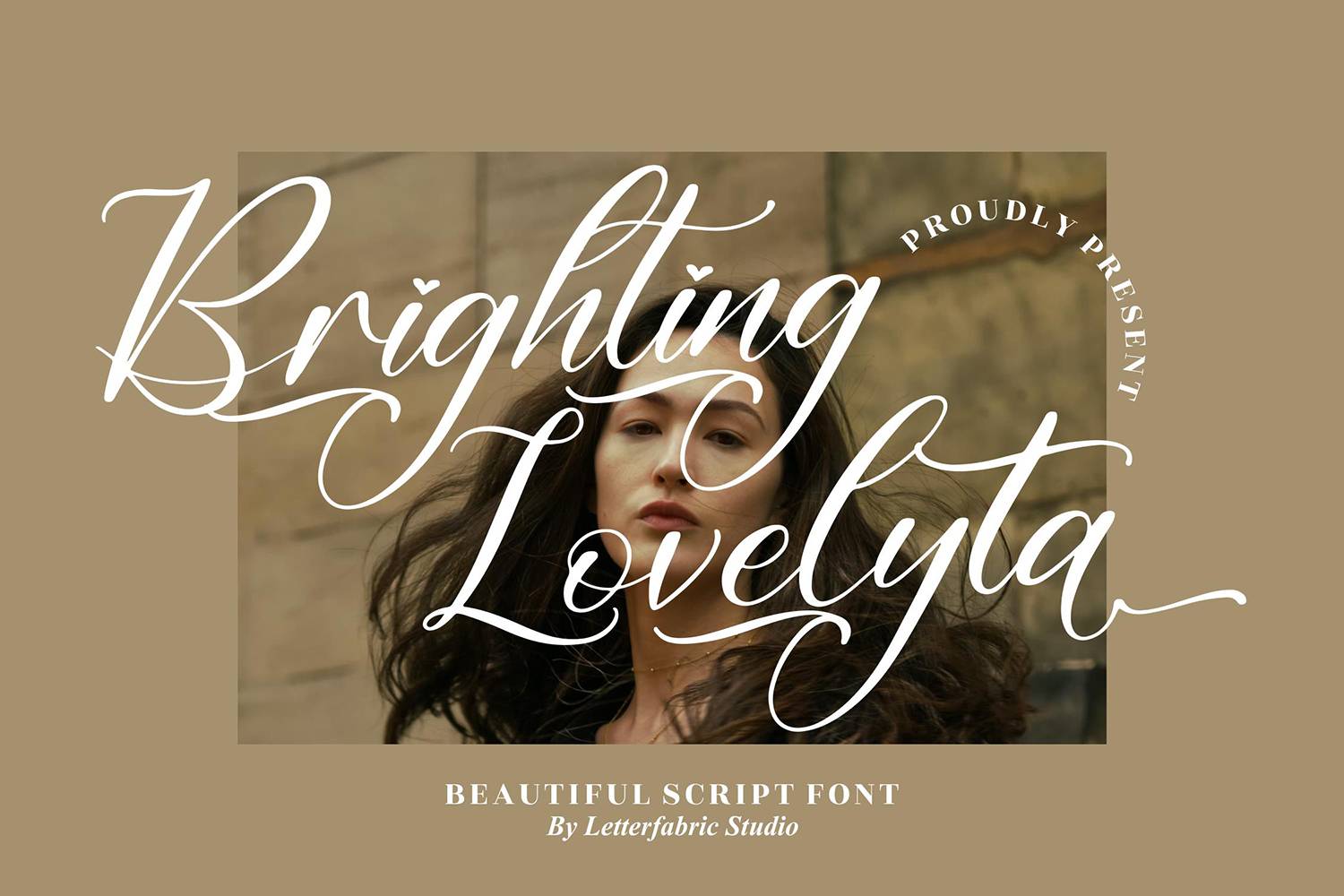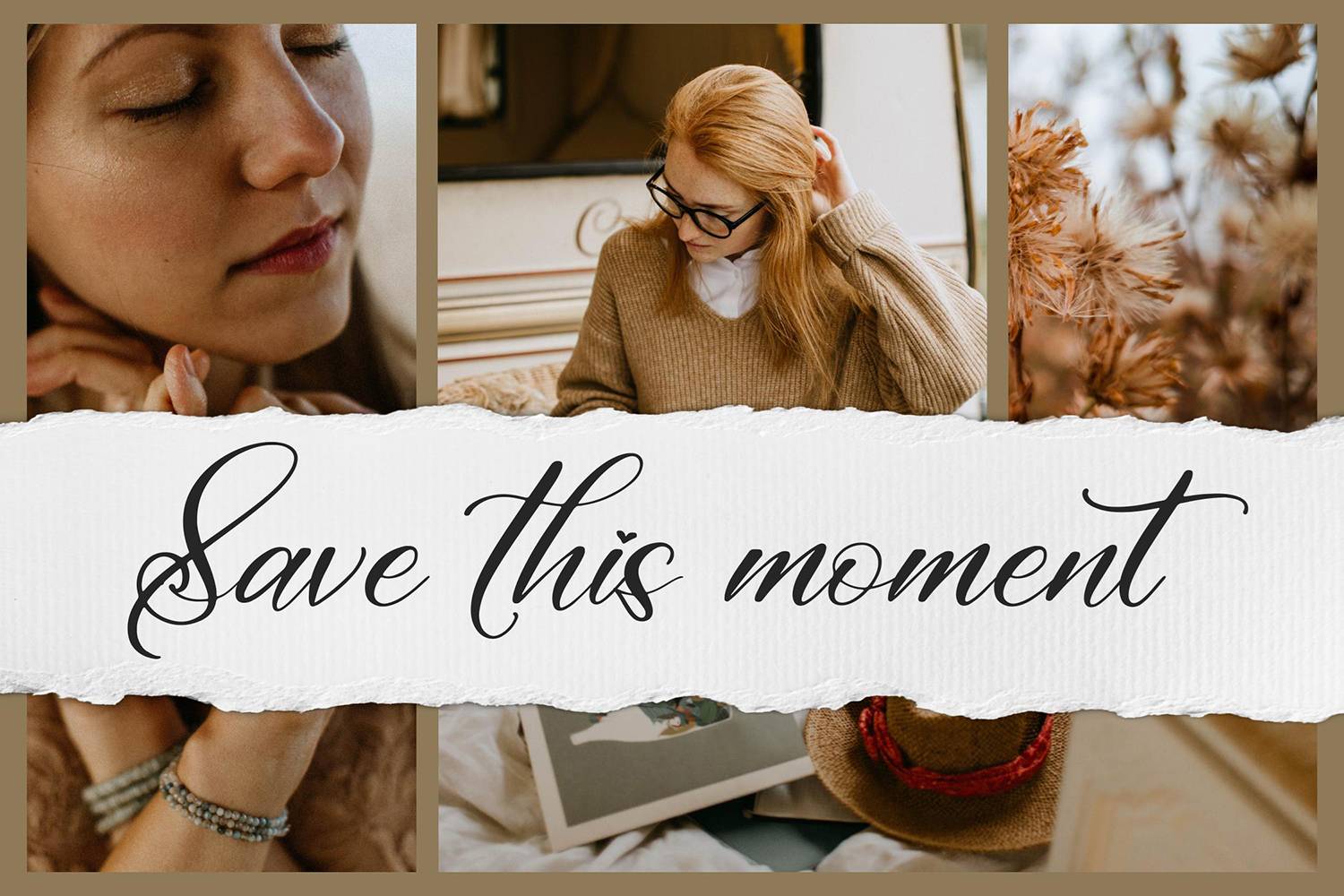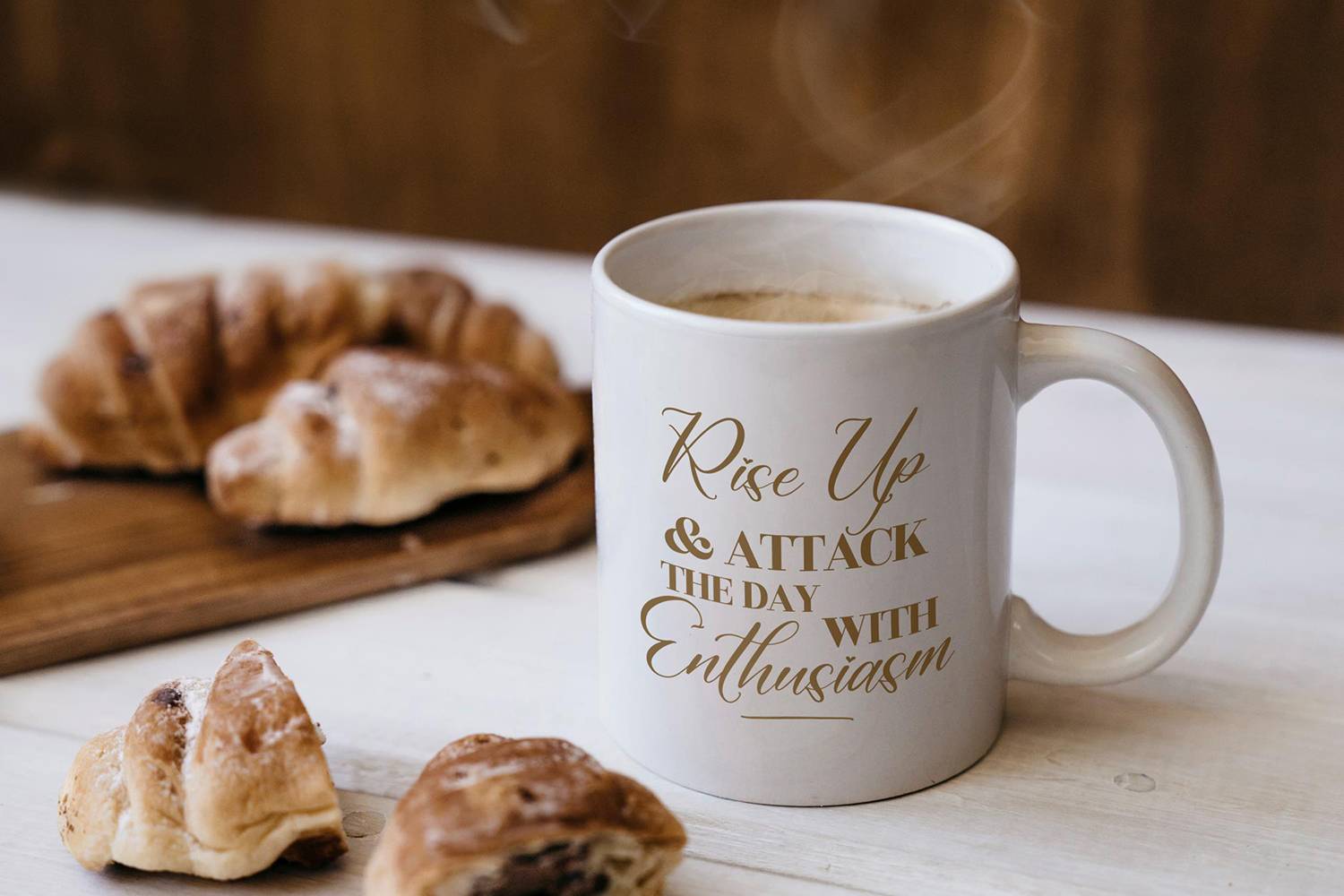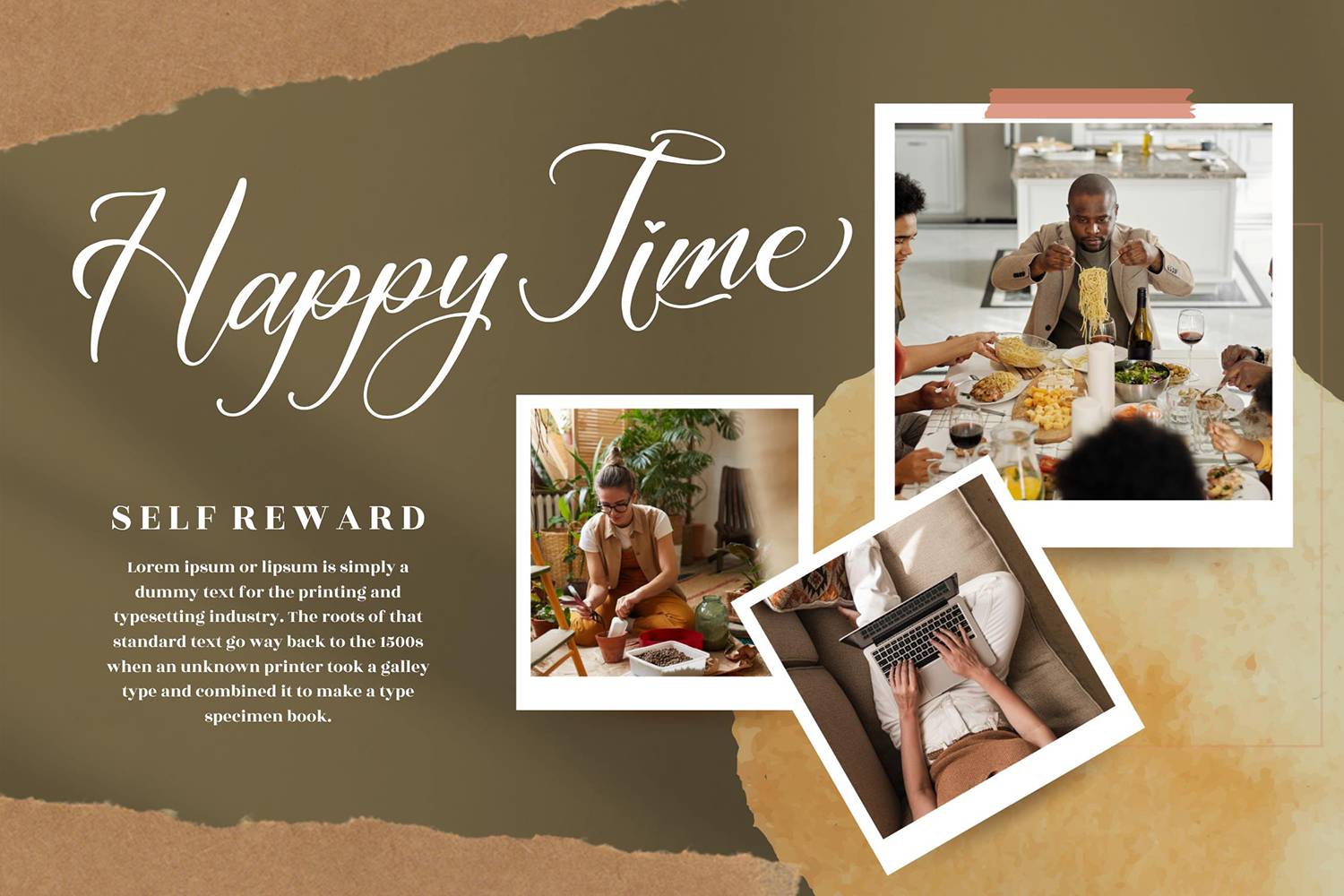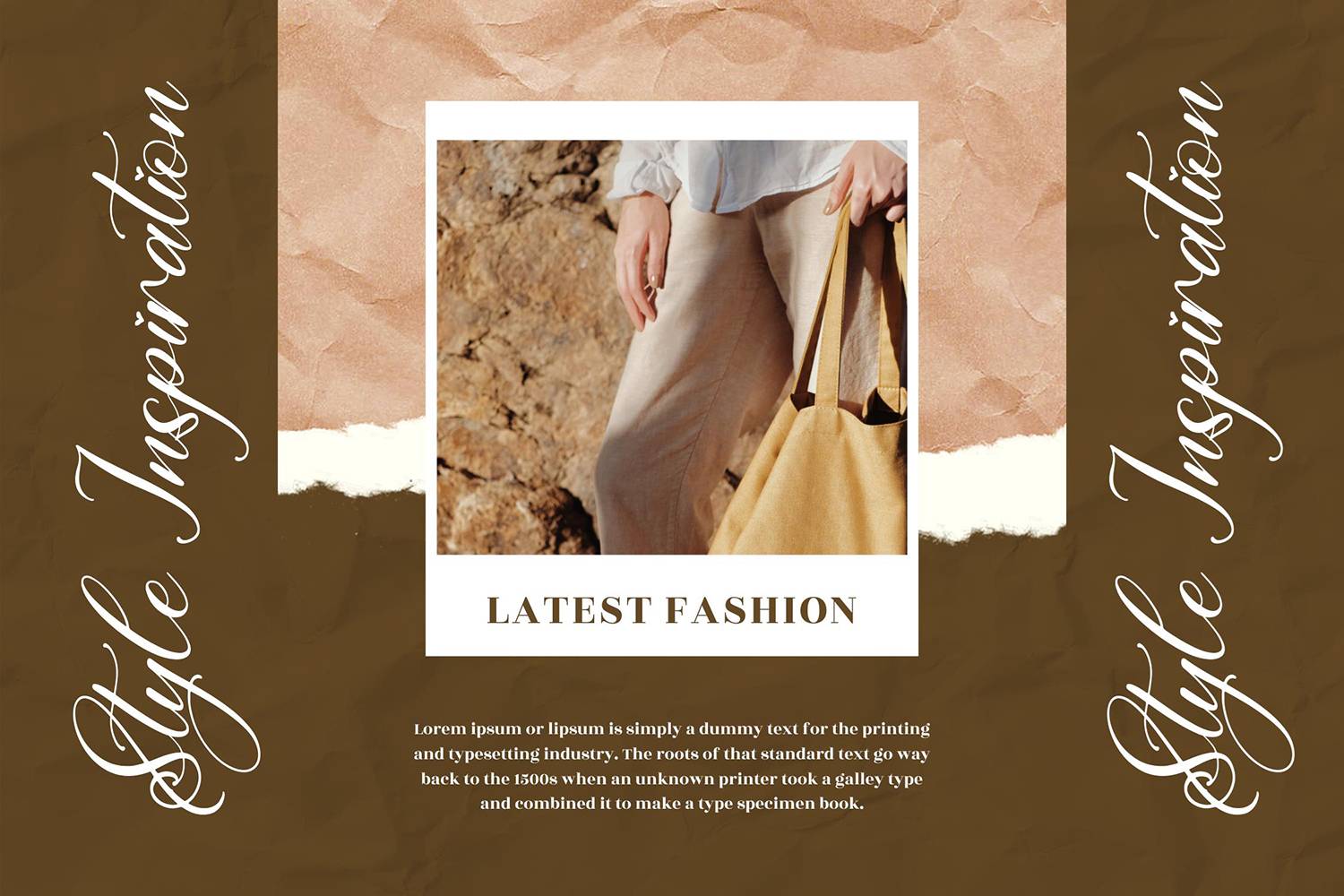
Brighting Lovelyta is a delicate, elegant script font characterized by its flowing, thin strokes and graceful flourishes that evoke a romantic and sophisticated feel. Its high-contrast, calligraphic style with both uppercase and lowercase letters make it perfect for wedding invitations, luxury branding, and elegant headlines where a refined and personal touch is desired. This font’s light, airy forms add a charming and stylish flair to designs, making it ideal for special occasions and upscale editorial projects.
Brighting Lovelyta Font
About Brighting Lovelyta Font